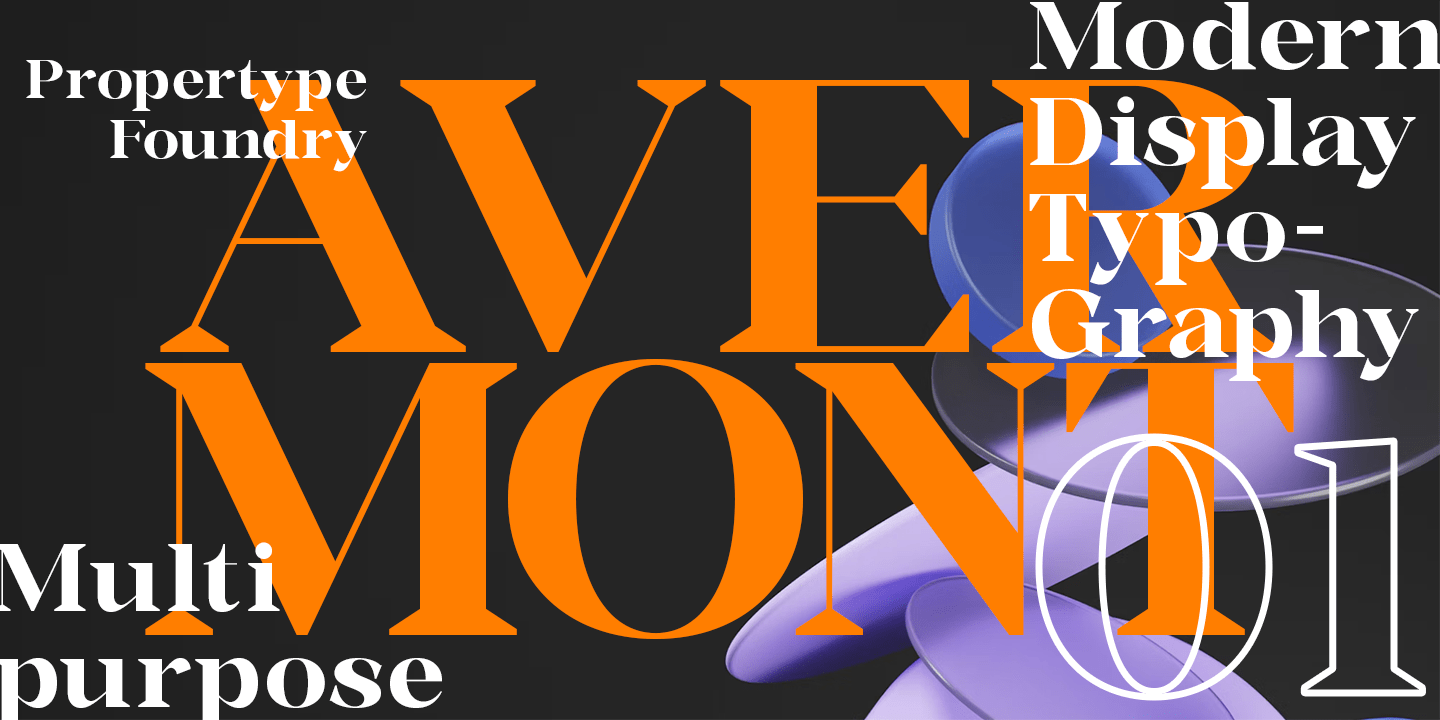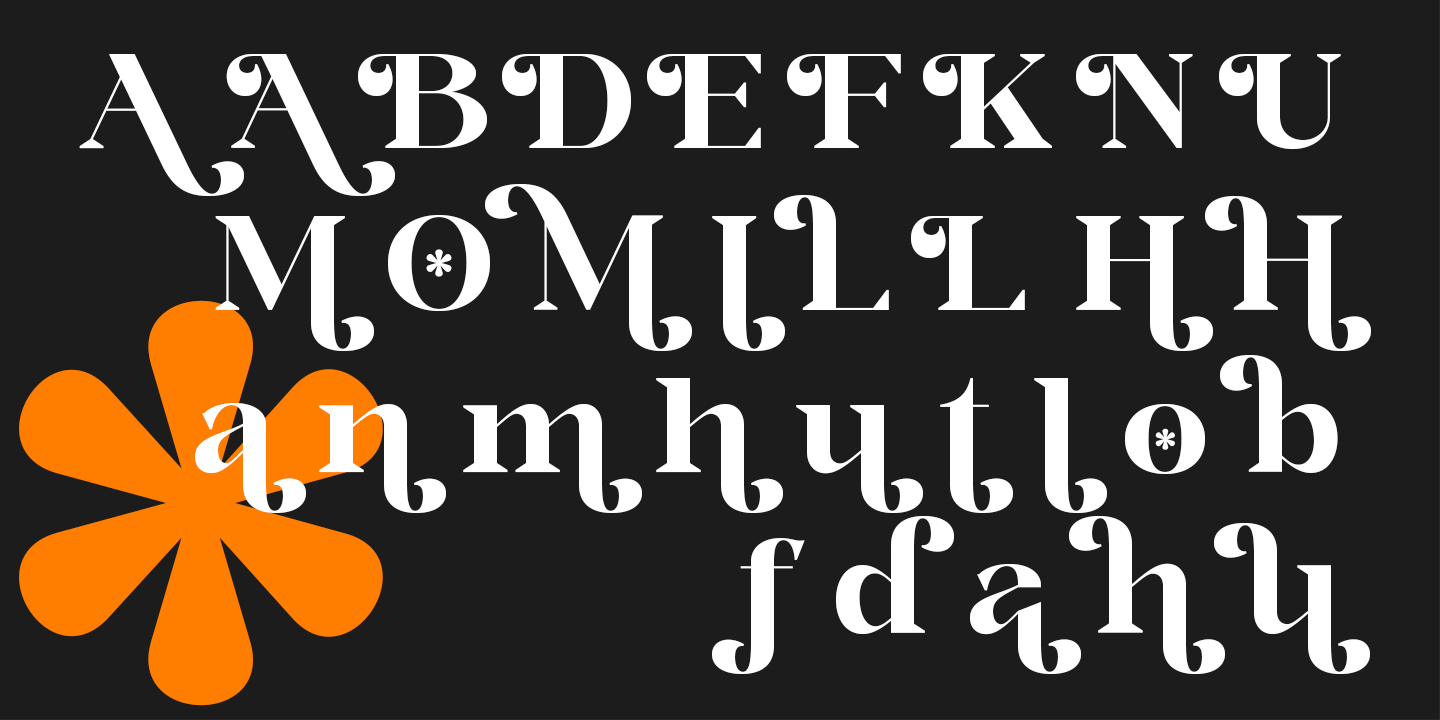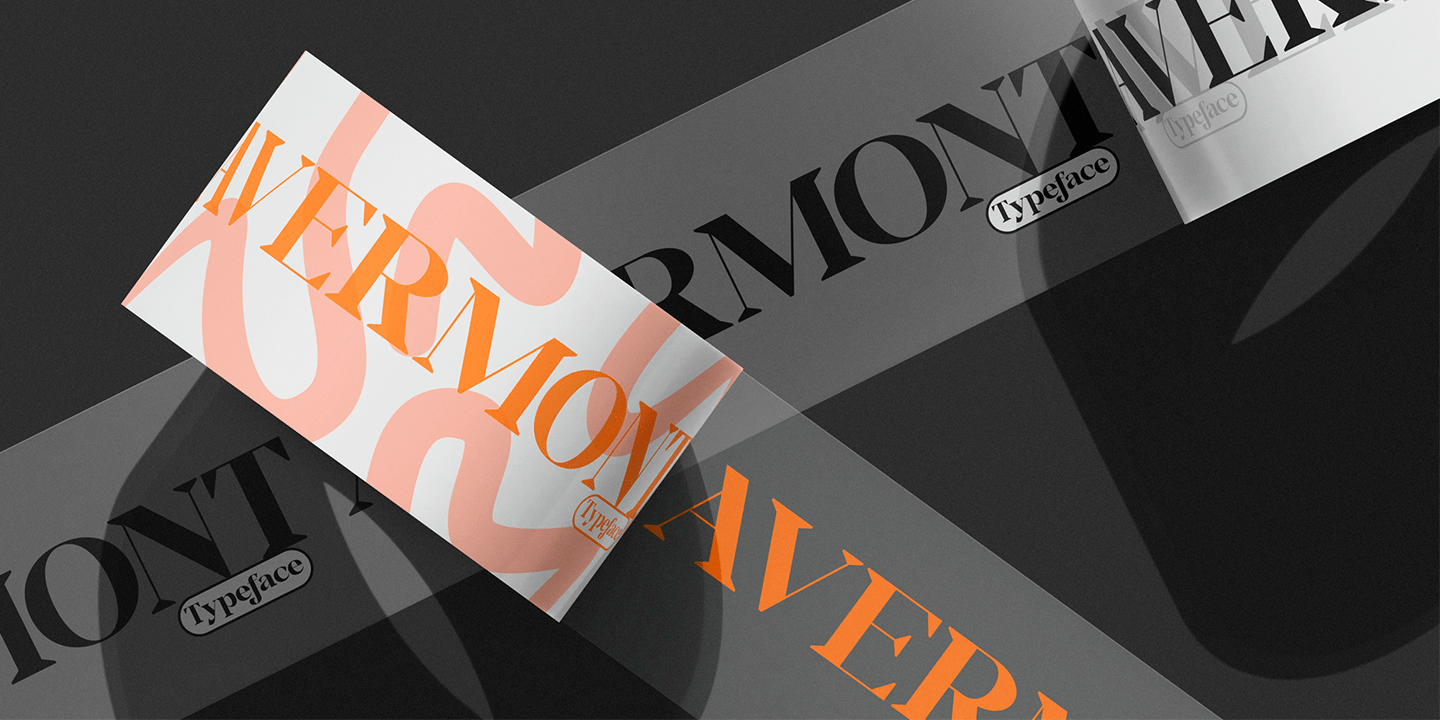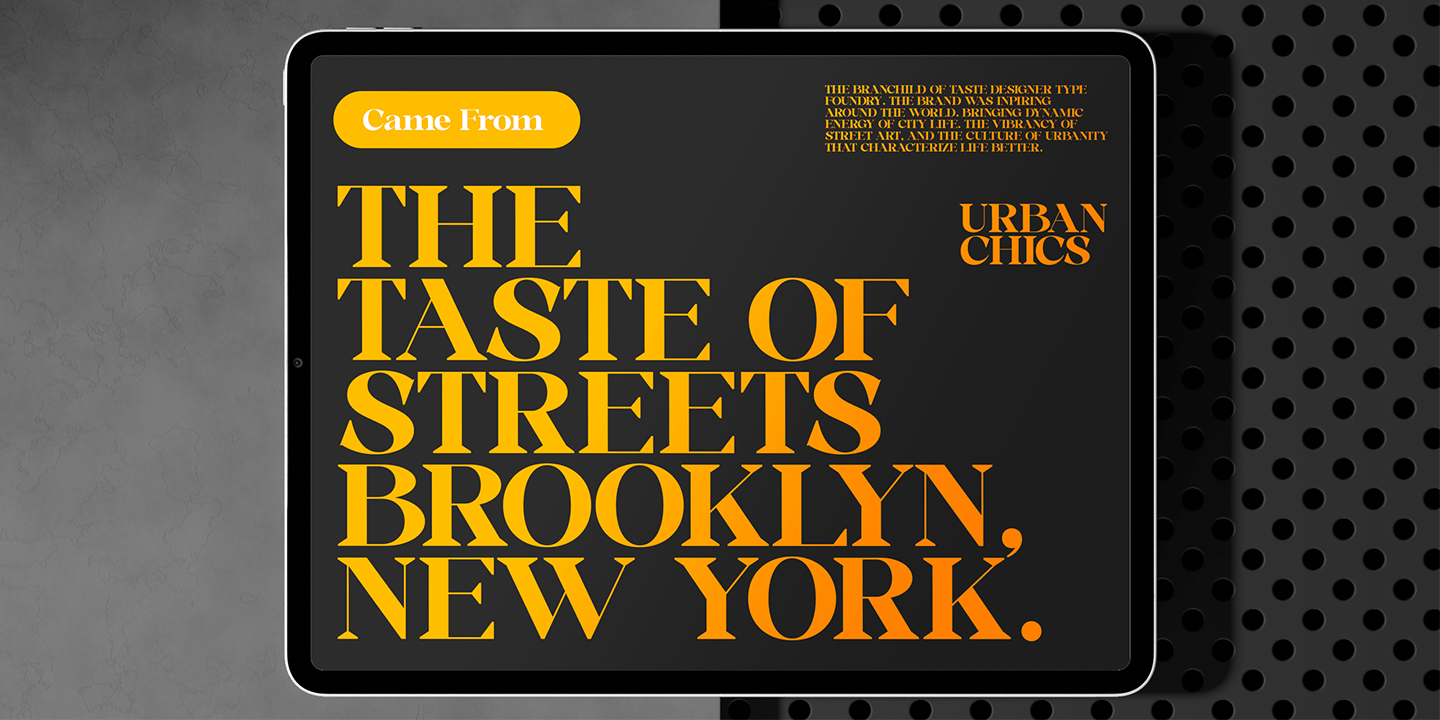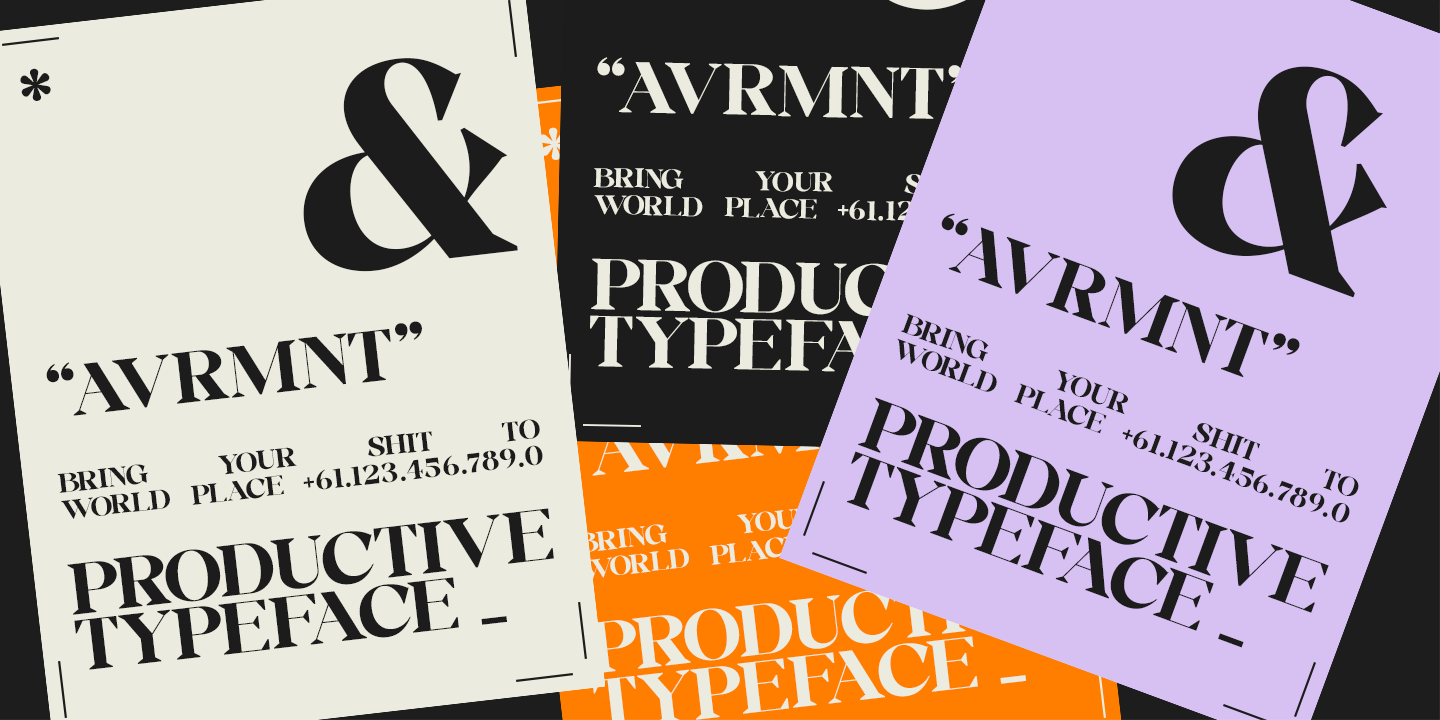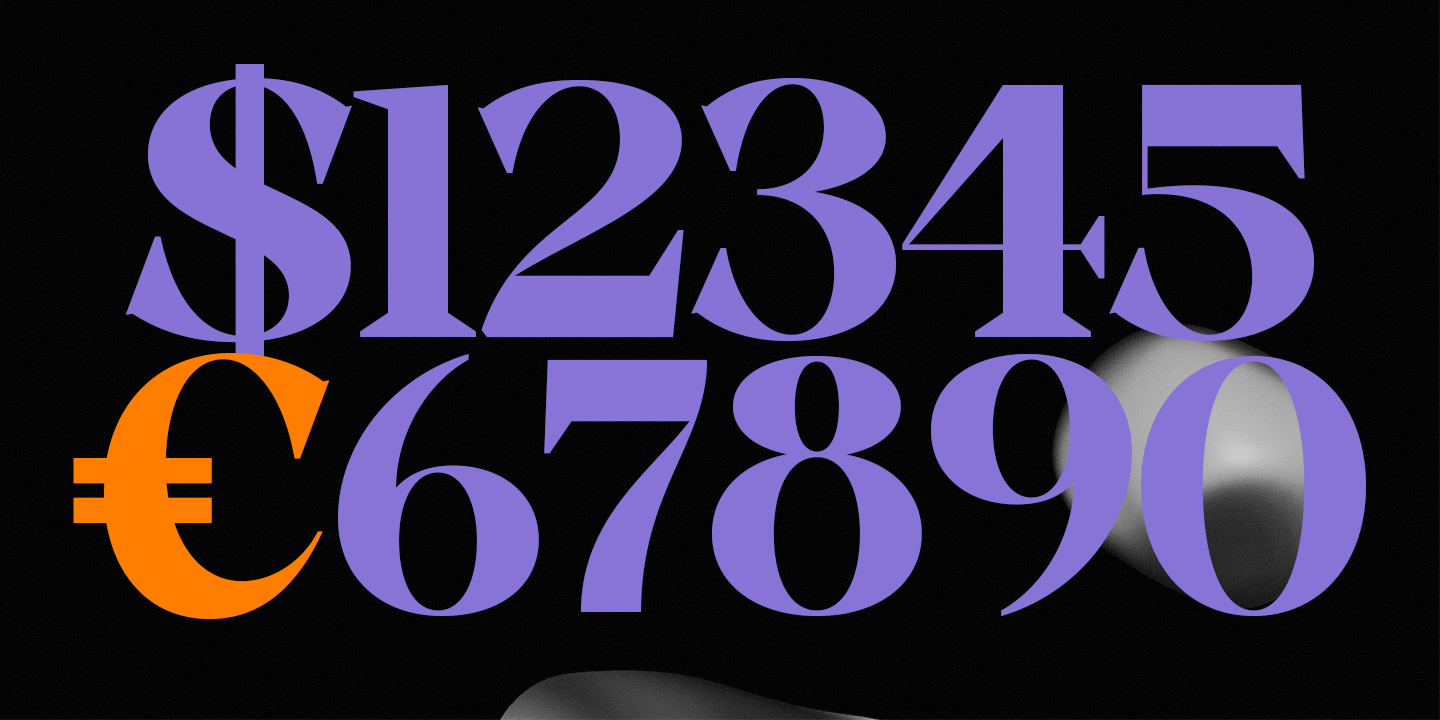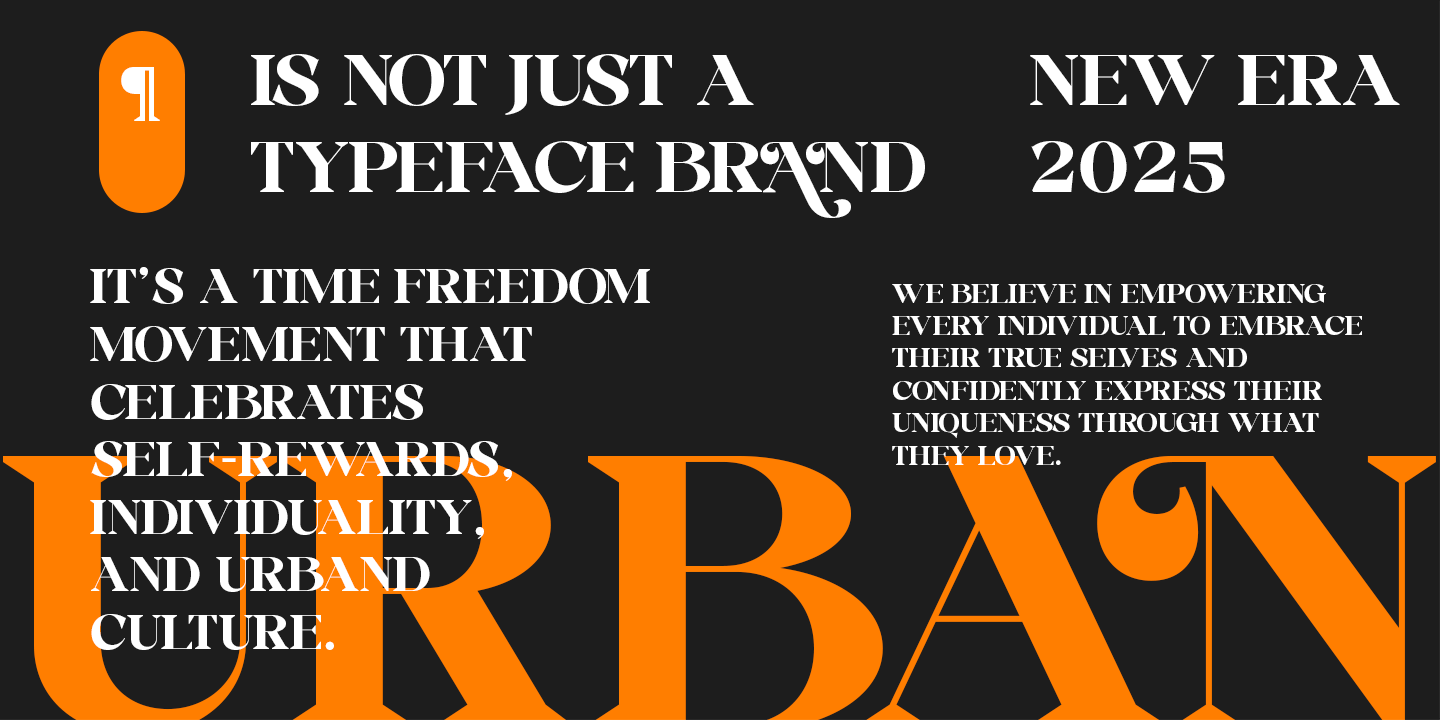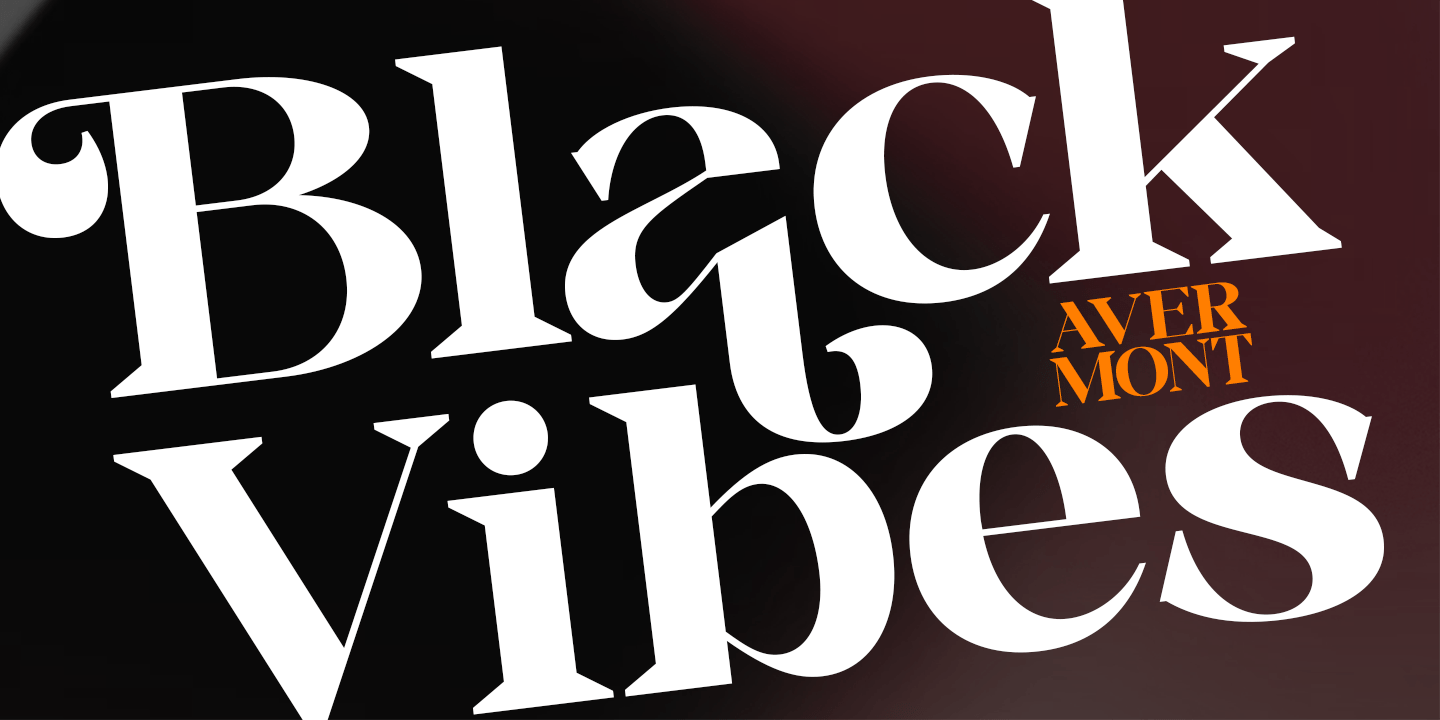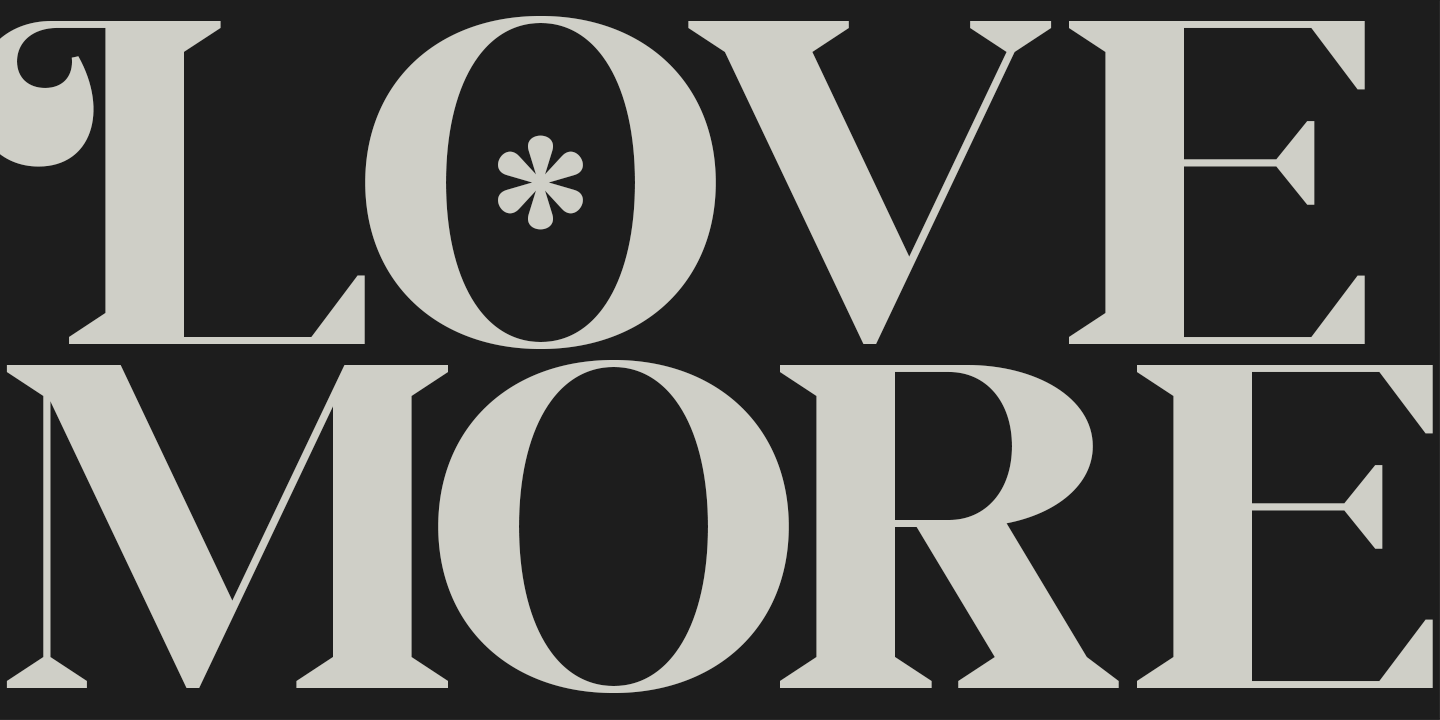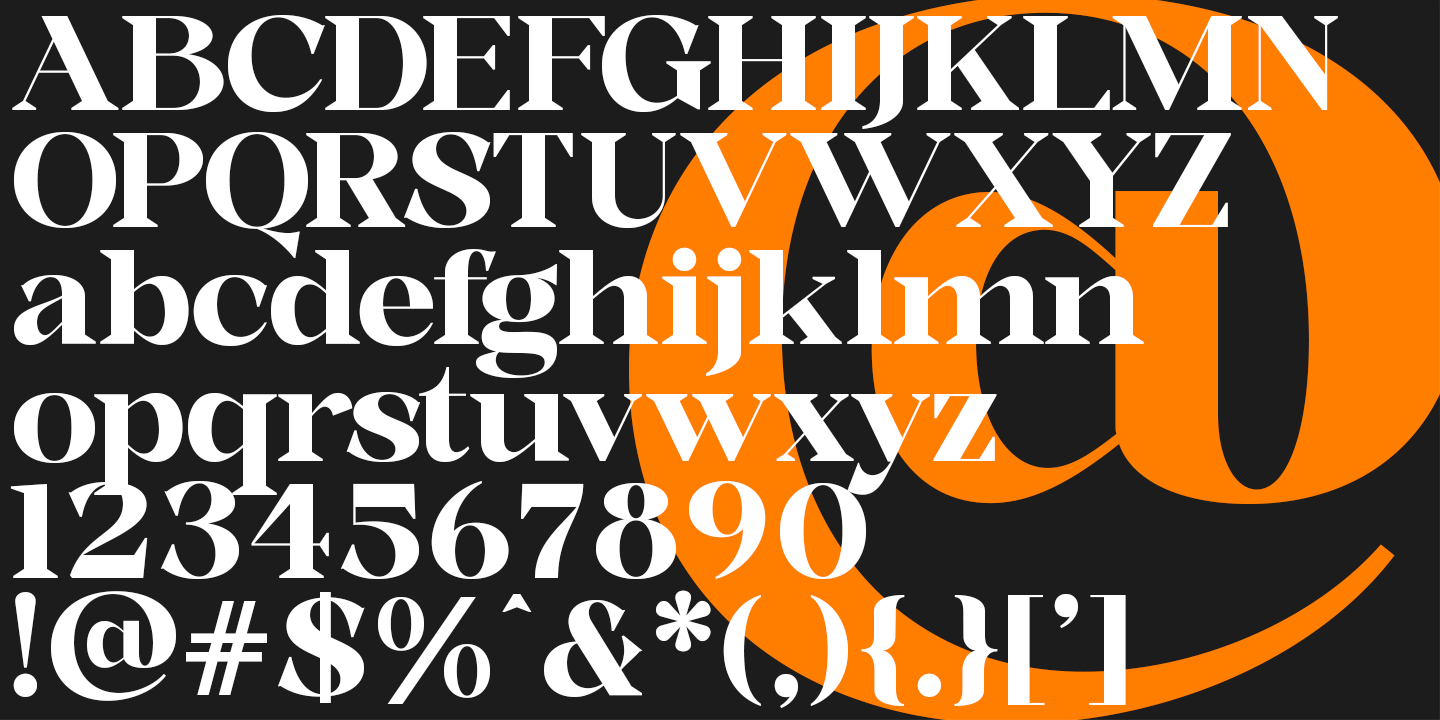
Avermont
Font Family by Propertype
Avermont is a serif font that combines classic elegance with a modern touch, making it suitable for a variety of design needs that prioritize an elegant and professional impression.
Avermont's letters are designed with harmonious proportions, ensuring readability without sacrificing aesthetics, making it the perfect choice for designers seeking to emphasize class, commitment, and visual power.
This typeface family has been the result of sincere effort, making it accessible and enjoyable to use.